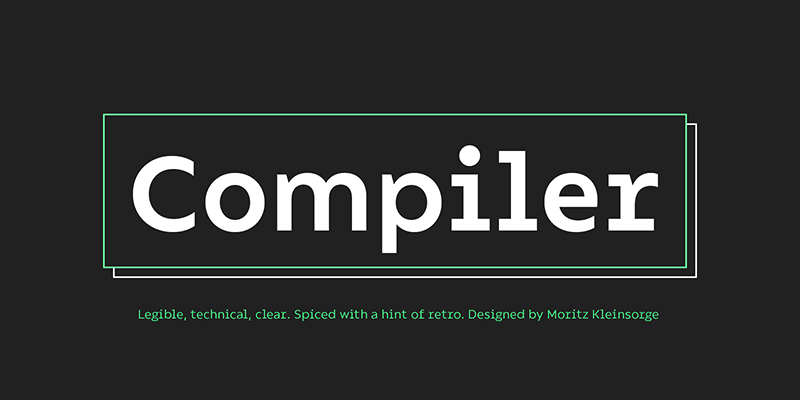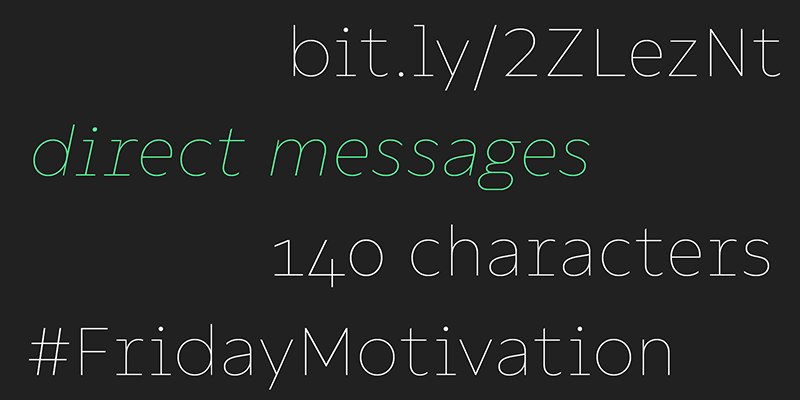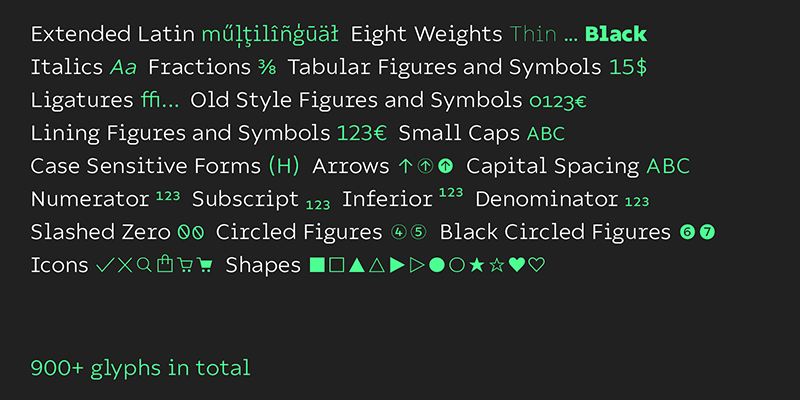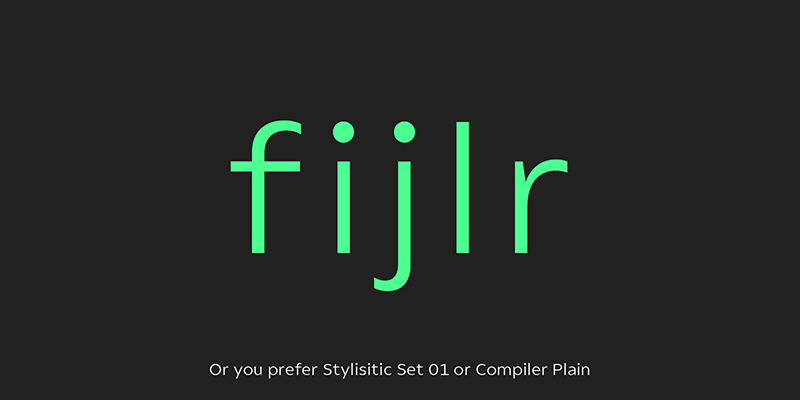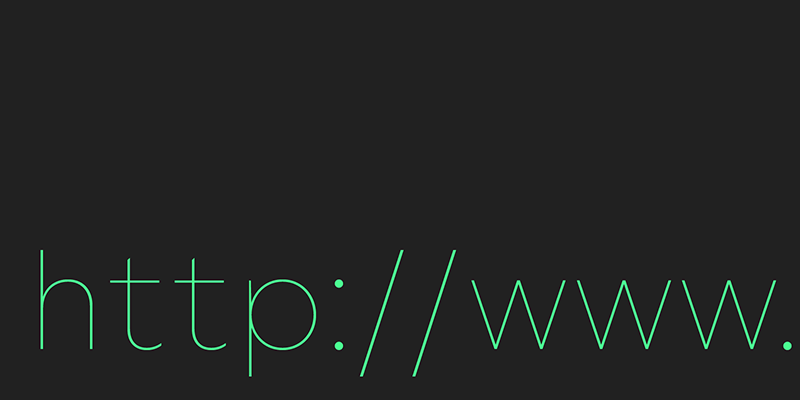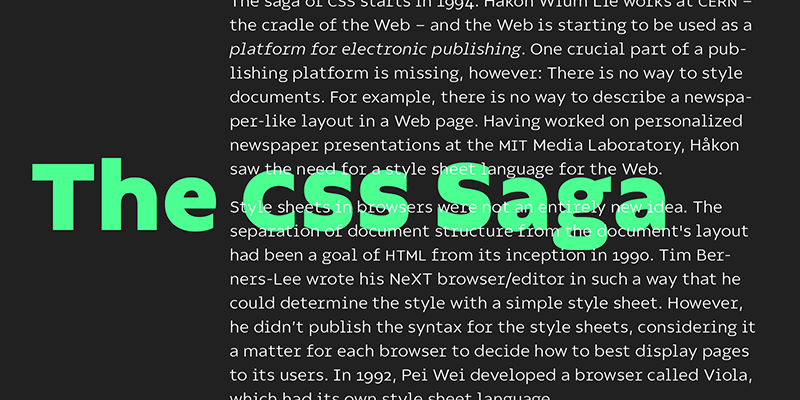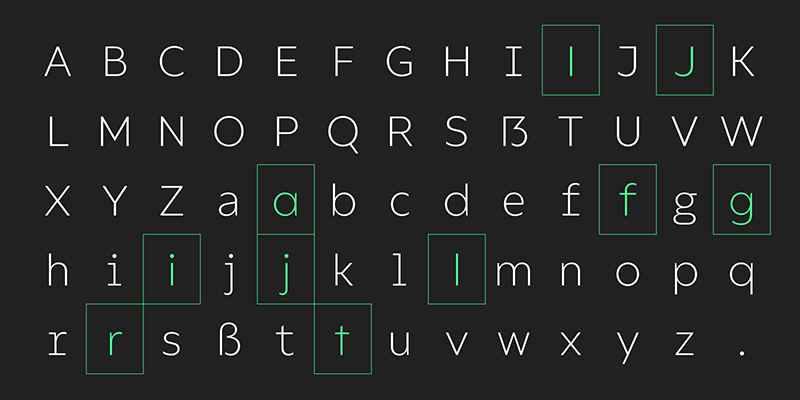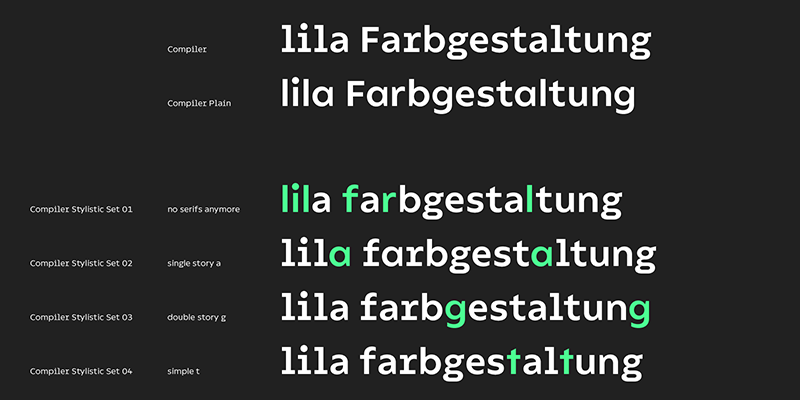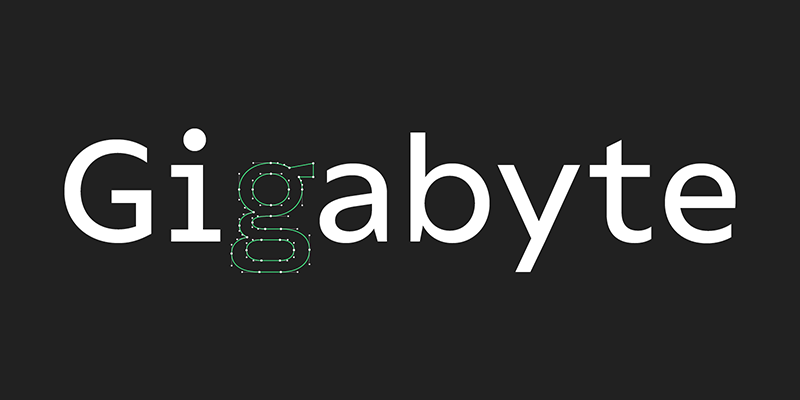
Font purchase made easy: “Identity Letters” – new foundry with accurate typefaces and a fair licensing model
Experienced designers know that choosing the right typeface is often worth its weight in gold. On the other hand, buying and managing the corresponding licenses rarely causes jubilation. Reason enough for type designer Moritz Kleinsorge to develop his own, deliberately simple licensing model for his typefaces.
“Identity Letters” starts with a library of eleven accurately cut, high-performance typefaces by Moritz Kleinsorge. Most of them, such as the “Allrounder” superfamily, are already known from various bestseller lists. And further releases are in progress.
“Identity Letters” – that’s the name of the game. In future, the new foundry will also focus on exclusive typefaces for strong corporate identities. That’s no surprise, since (custom) corporate typefaces have already been the central topic in the master thesis [corporate-typeface.com] of the designer from the Lower Rhine.
New font family “Compiler”: Workhorse with console look
Legible, technical, clear—with a hint of retro: Compiler is a no-frills font family straight from the heart of a microprocessor.
Inspired by console typefaces, the humanist sans serif typeface combines a large x-height with striking serifs on certain letters such as i and l. Those serifs evoke the aesthetics of monospace typefaces for programming. Even though Compiler is a proportional typeface, this detail improves glyph recognition and helps differentiate between individual letters. Combined with vertical stroke ends, which allow for particularly even spacing, the serifs make for an extremely legible typeface. (Even in small sizes.)
Brand recognition guaranteed: Compiler is ideal for applications that require a mechanical flavor without appearing offish. You can use it for websites, apps, branding, corporate design, annual reports, signage, and many other areas with perfect results.
Compiler includes an additional subfamily, Compiler Plain. In Compiler Plain, the signature letters lose their serifs and the forms of “a” and “g” are simplified. This way, the shapes are neutralized. The technical impression recedes into the background. Both families can be combined smoothly: you might use the standard Compiler fonts for display sizes and Compiler Plain styles for body copy. For total design control, you can toggle each of the defining design elements individually from Compiler to Compiler Plain and vice versa. Just use Stylistic Sets to fine-tune your Compiler fonts.
Compiler provides you with 8 weights in 4 variations: Upright, Italics, Plain Upright and Plain Italics. That’s a total of 32 fonts. Each style contains more than 900 glyphs, including advanced typographic tools such as proportional and tabular figures (both lining and old-style) or small caps—something you’ll rarely find in this genre. Other glyphs are optimized for display sizes, such as circled figures and various arrows. There’s also a set of glyphs designed for web use: with symbols for shopping carts, hamburger menus or checkboxes, you can implement your web projects elegantly and consistently without relying on third-party tools (like an external icon font).
Powered by highly productive OpenType functions, Compiler is an intermedia workhorse straight from cyberspace.
Glance Sans
Geometric, stylish, and not quite a stencil face: Glance Sans is the urban alter ego of Glance Slab—a strong-willed sans-serif with no frills but a few unique character traits.
Glance Sans follows the design principle of nonjoining parts that made Glance Slab successful. Some strokes may not connect to their stems, creating visible gaps and thus, a dynamic impression of balance and movement. However, Glance Sans has a calmer appearance due to the lack of detached serifs. If Glance Slab’s home territory is large, crowded stadiums and massive sports events, Glance Sans prefers streetball courts, well-used skate parks, and underground clubs. It also adapts to urban work environments from finance to high-tech. Whenever a more toned-down look is called for while retaining the elegance of an athlete, Glance Sans is ready to roll.
In the city environment, versatility is key. That’s why Glance Sans sports 7 weights as well as a complete set of italics. These are not just sloped romans but individually drawn letterforms, subtly referencing classic italic construction for more effective emphasis. Among the 600+ glyphs of Glance Sans, you’ll find goodies such as six sets of figures, circled numbers, circled arrows, and all kinds of currency symbols in two stylistic versions. Glance Sans is a great tool for industrial and high-tech branding, for wayfinding systems in contemporary or modernist architecture, for corporate identities in arts, crafts, medicine, culture, and education, and for all kinds of sports-themed design.
Both members of the Glance superfamily are easily and effectively combinable; both are able to stand on their own feet. With its powerful italics, you might opt for Glance Sans as your text typeface and use Glance Slab for headlines. Or you set large, clean, display-sized lines in Glance Sans and spice them up with a bit of sportive Glance Slab. It’s up to you to decide how to bring out the best in both of them.